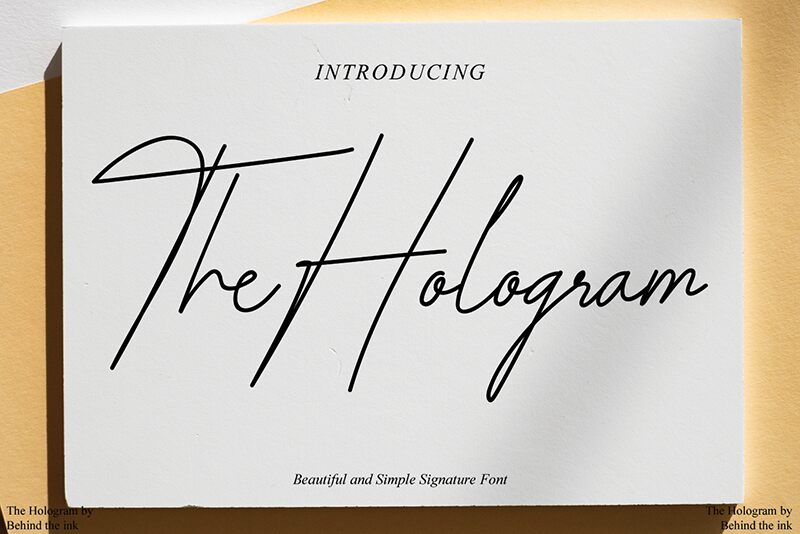
The Hologram font designed by Behind the Ink is a handwritten free font presented in an elegant, sophisticated style. It offers remarkable contemporary typography guaranteed to fulfill the requirements of projects in need of flowing, luxurious, and refined letterings. Stylish, dynamic, and expressive, the font will create an impressive atmosphere when used alone or with supporting typography.
The suggested uses for the font include branding, logo and sign designing, creating invitations, packaging for modern products, promotional materials, book covers, and magazine designs. The characters’ flowing style draws attention towards the text itself while suggesting either elegance or sophistication.
The Hologram is a thin-lettered handwritten font, masterfully designed to become a true favorite. It combines classy calligraphic influences with a contemporary and fresh feel.